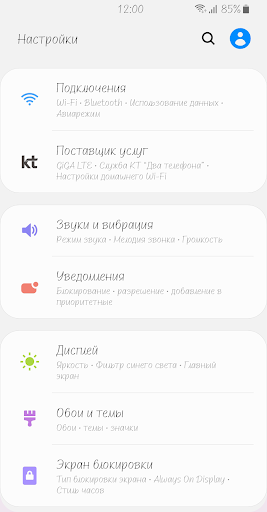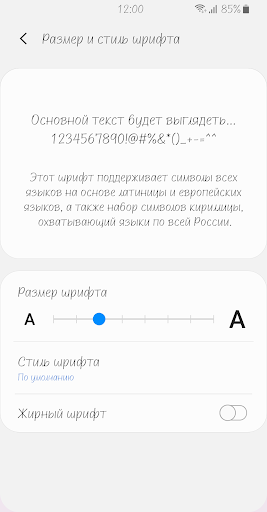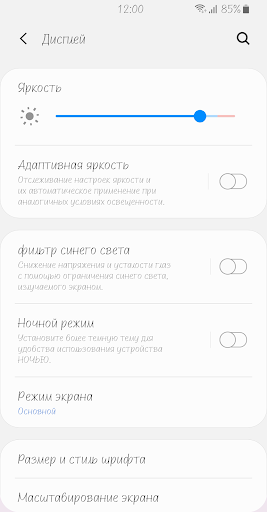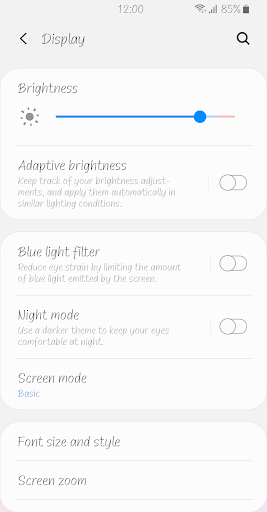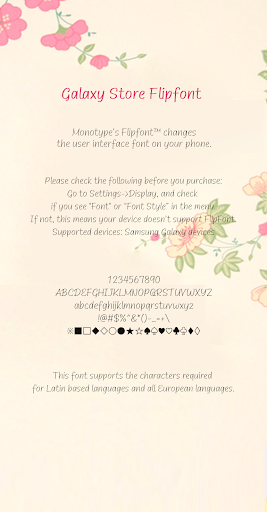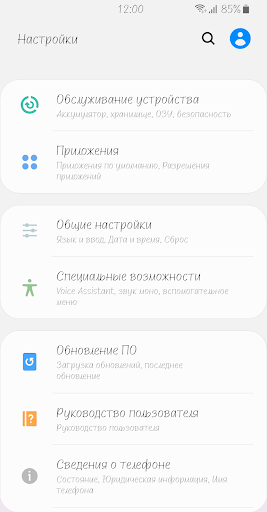
Fine Mylife
This font is a comfortable pen writing style that is free from excessive decoration.
The appropriate slope and bumpy feel at the end of the stroke convey an analog sensibility.
The simple and natural font composition provides a stable reading experience.
You don't have to worry about me.
Because I'm fine.
I'm no longer interested in what you say.
Because this is my life.
This font supports the necessary characters for Latin-based languages and all European languages, as well as a Cyrillic character set that supports languages across Russia.